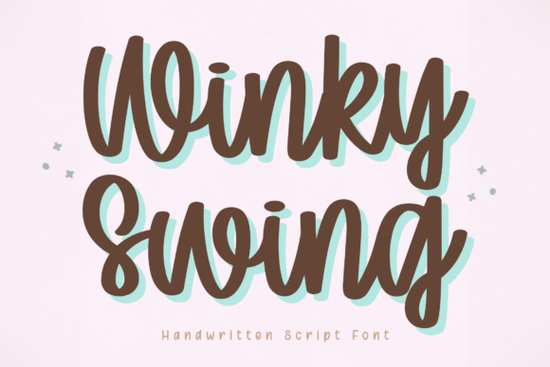
Many designers and crafters face the same challenge when trying to select a custom typeface: they want a font that feels personal and handwritten but still requires high readability. If you have been searching for a solution that balances personality with function, the Winky Swing Font is designed to deliver exactly that vibe. It brings a friendly attitude to layouts without sacrificing legibility, making it suitable for everything from business cards to Instagram stories. Because it mimics a natural pen stroke rather than a robotic line, it connects better with your audience.
Is this readable for longer text?
A common concern with brush-style lettering is whether it works beyond single words. Winky Swing performs beautifully across a wide range of applications because its clean structure ensures smooth results. When you apply this to invitations or blog headers, the slight bounce adds character without making the letters hard to distinguish. If you are looking for similar flexibility, consider exploring casual handwriting font script fonts that maintain clarity while allowing creative freedom.
This typeface helps prevent your designs from looking stiff or corporate. It creates a natural handwritten feel that encourages trust in personal brands. Small business owners often find that using a script like this softens their overall brand identity. Whether you are designing a menu for a cafe or a welcome packet for clients, the distinction between "handmade" and "machine-made" disappears quickly. The smooth flowing strokes allow text to breathe, ensuring the message remains the priority even when the typography is busy.
How does it perform on cutting machines?
For those who use tools like Cricut or Silhouette, file preparation is crucial. Carefully crafted for versatility, this option handles both writing and cutting modes effectively. Users frequently report that files cut cleanly with minimal weeding required because the curves connect logically. This reliability makes it a good choice for everyday creative use, especially when producing stickers, t-shirt transfers, or vinyl decals.
When preparing vectors for these projects, spacing plays a significant role. You might find that pairing this font with a bold sans-serif creates the right balance. Sometimes, a script needs a strong counterpart to stand out. If you enjoy that playful bounce, you might also appreciate the energy found in the Lucky Font Script Fonts for complementary project variations. The consistency of the lines means you get fewer unexpected gaps in your final cuts.
Can it work for educational or kid-friendly content?
School teachers and parents know how important it is to make learning materials engaging. Since this script feels approachable and lively, it fits perfectly into worksheets, birthday party decorations, or children's book illustrations. The slightly bouncy letterforms mimic the excitement of childhood writing. If you need resources specifically tailored for younger audiences, you can browse the Child Font Script Fonts collection to compare different styles that suit age-appropriate themes.
Digital planners are another area where this font shines. Planners require text that looks organized but warm, helping users stay motivated without feeling overwhelmed by rigid blocks. The open loops in certain letters prevent crowding inside the planner pages. It maintains a professional appearance while keeping the tool feel cozy and inviting. Social media managers often use it to highlight quotes or captions where emotion matters more than formality.
What are good alternatives for specific projects?
Every design brief has unique requirements. While Winky Swing is excellent for general scripts, some specific projects benefit from a softer or more vintage look. If you need a signature element that feels elegant, you could compare it to styles found in the Randy Sofia Font Script Fonts for a more delicate touch. Conversely, if you are aiming for a rustic theme, the Vintage Postman Font Script Fonts might offer the aged character you are seeking instead of a modern swing.
It is helpful to test drive the font before committing to a large batch of production assets. Most platforms offer preview tools that let you type sample sentences to see how it handles punctuation and spacing. You should experiment with capitalization settings to see how it transitions between upper and lower case. Understanding these mechanics ensures your final output aligns with your visual goals. Ultimately, the goal is to choose a tool that simplifies your workflow rather than complicating it.